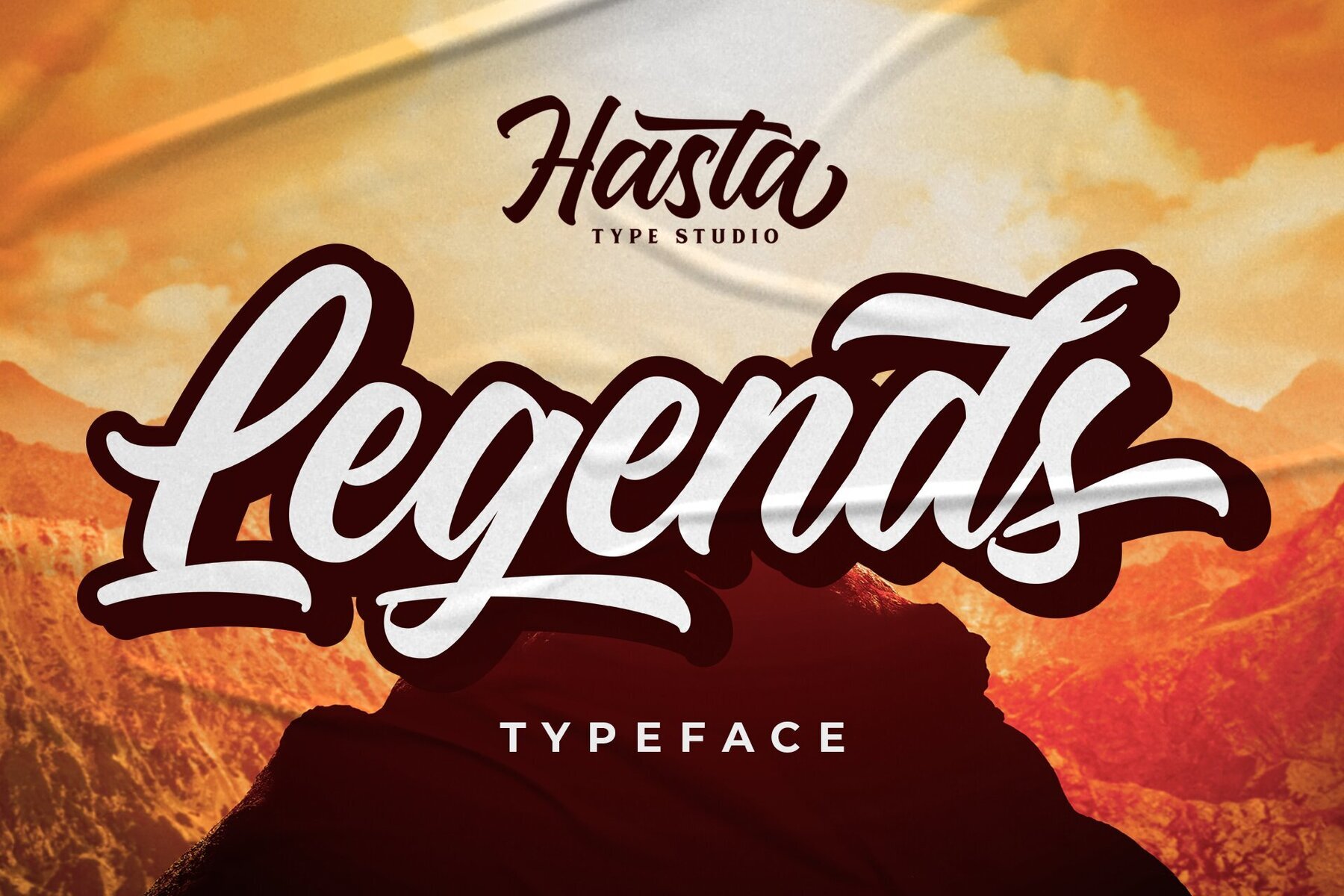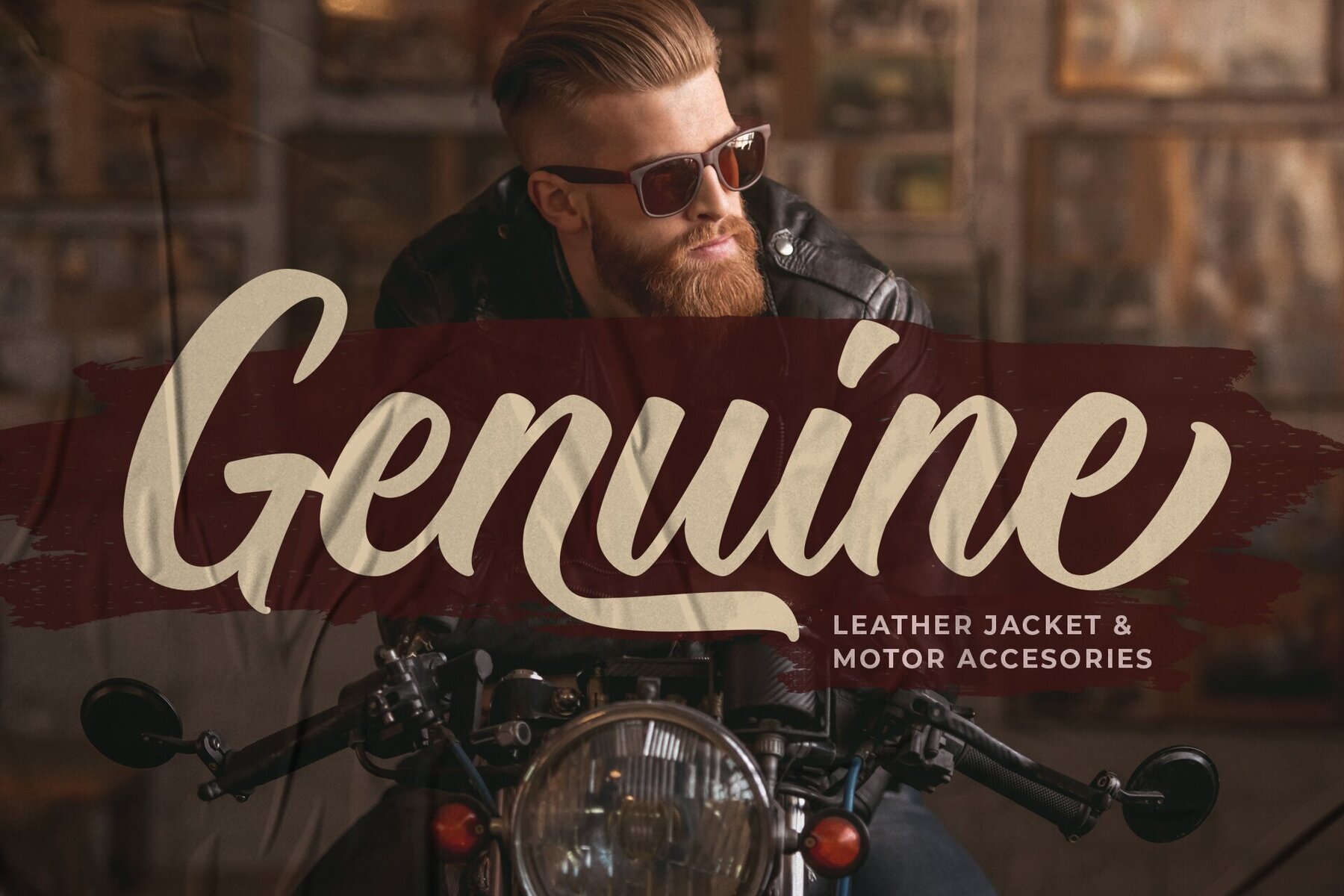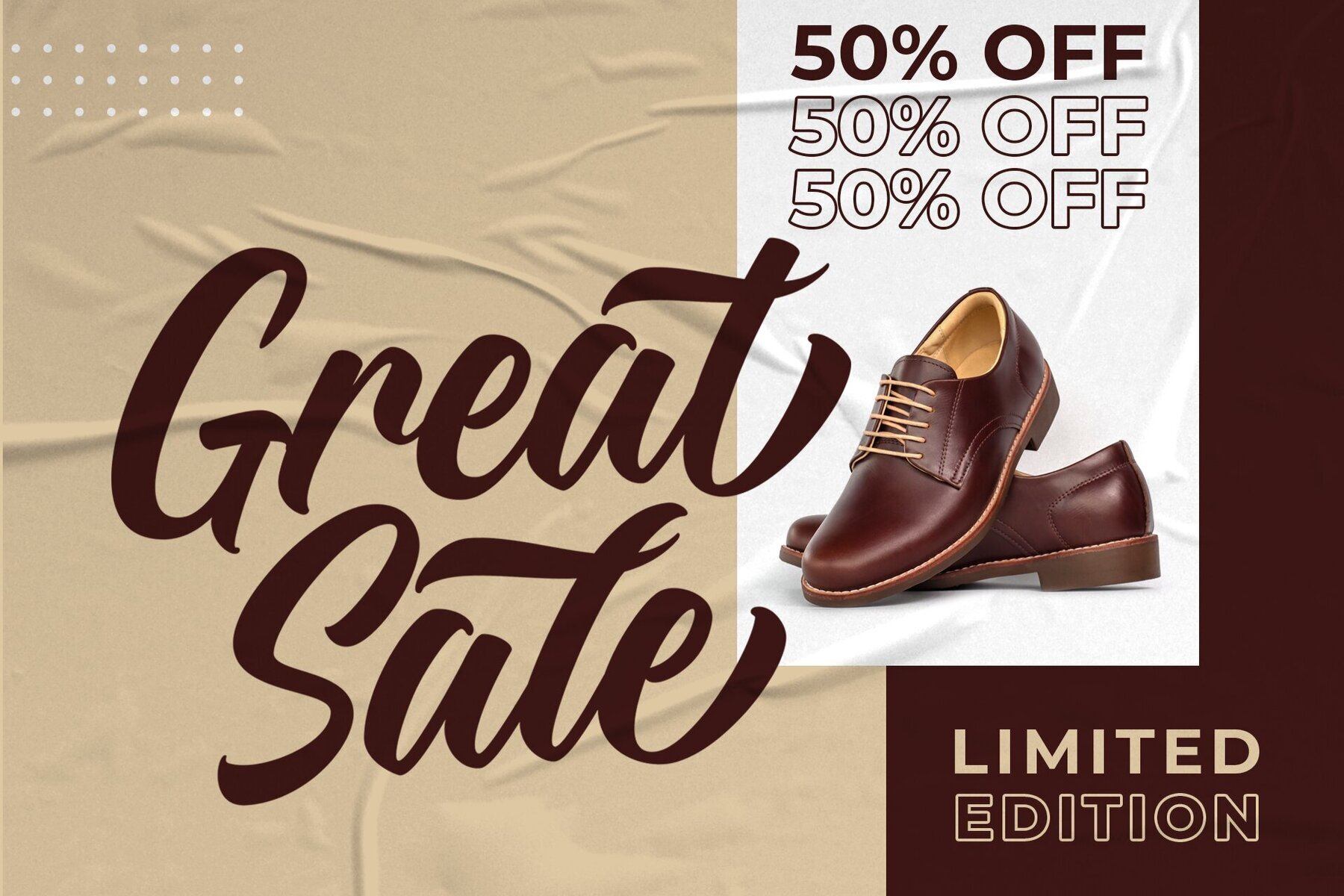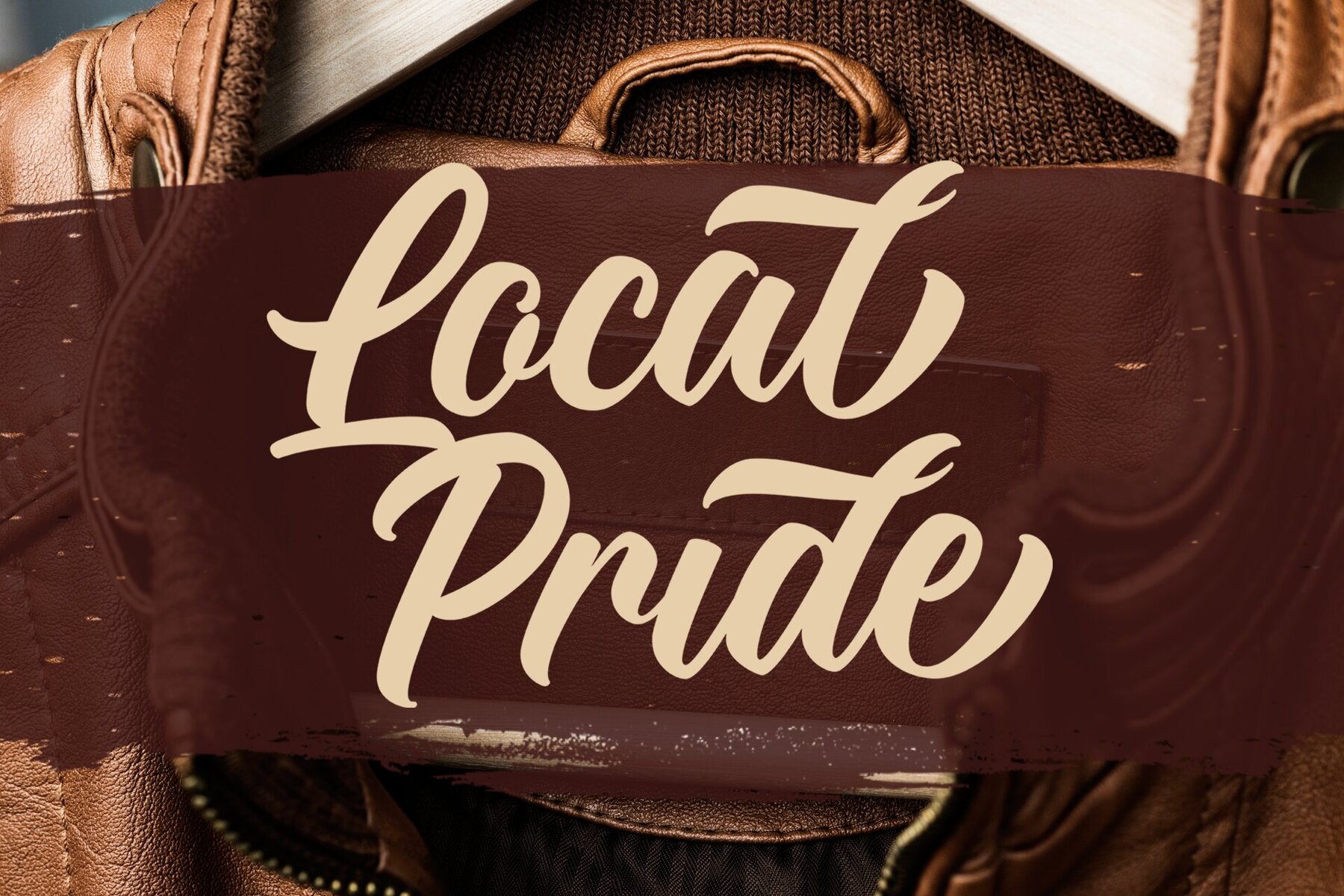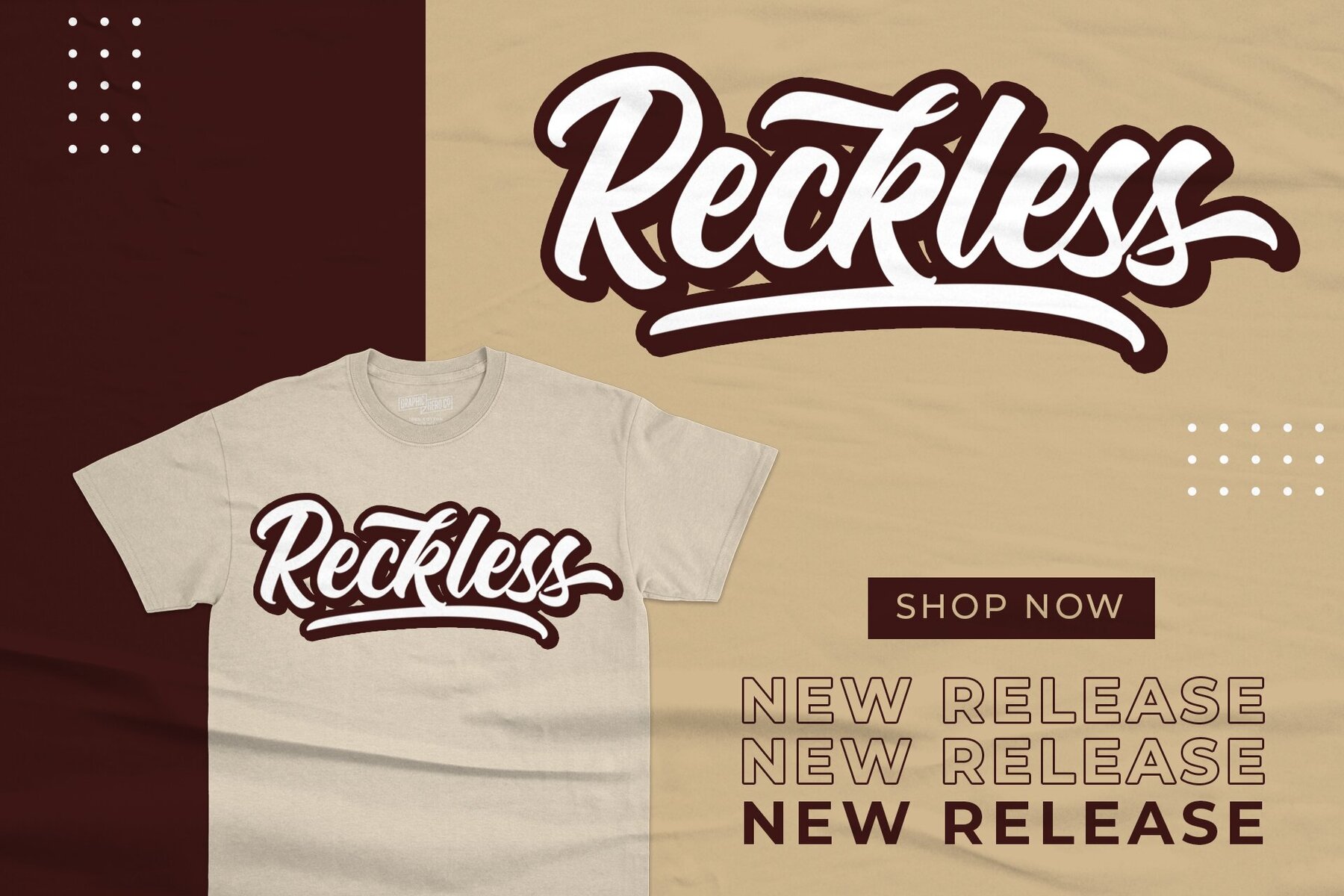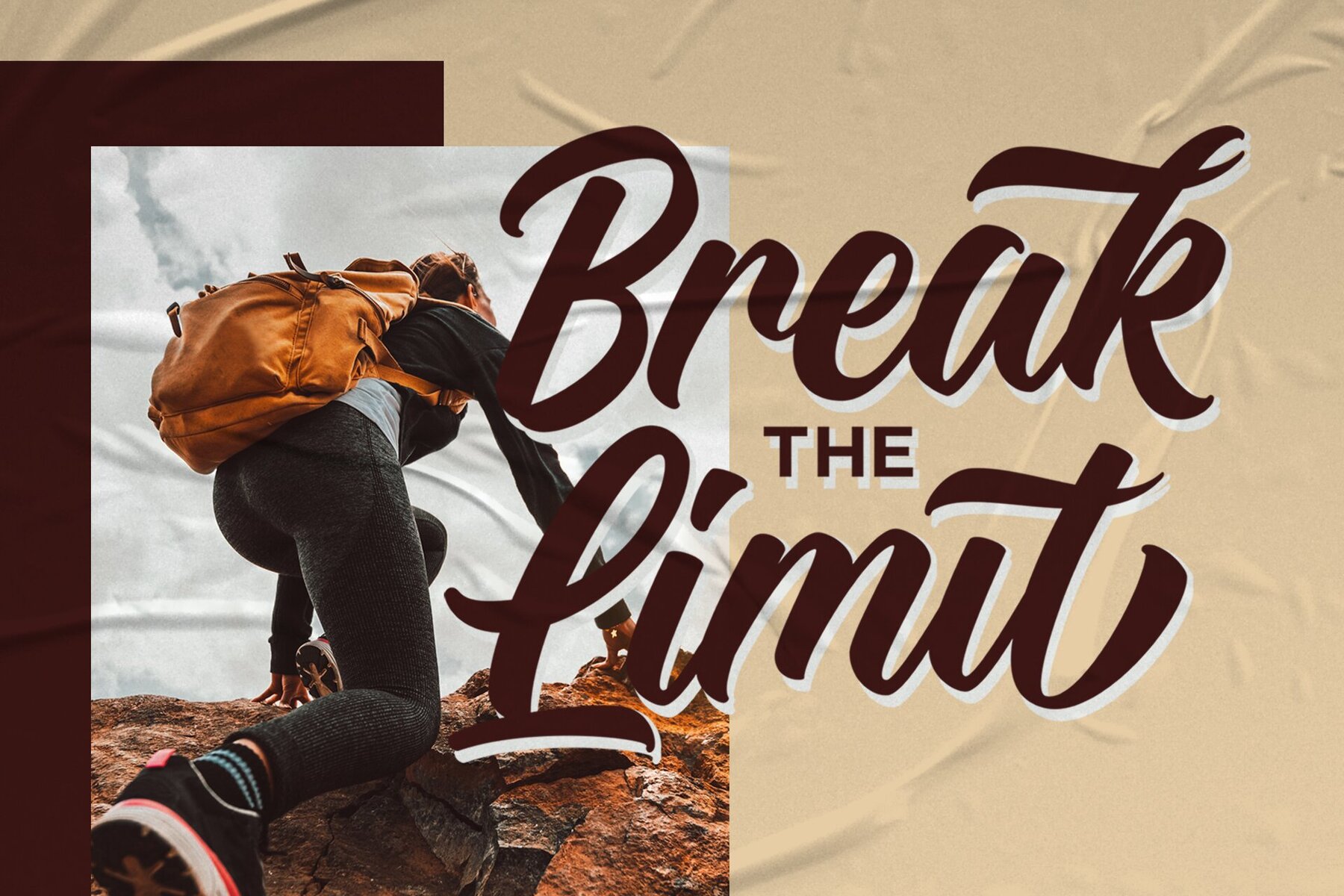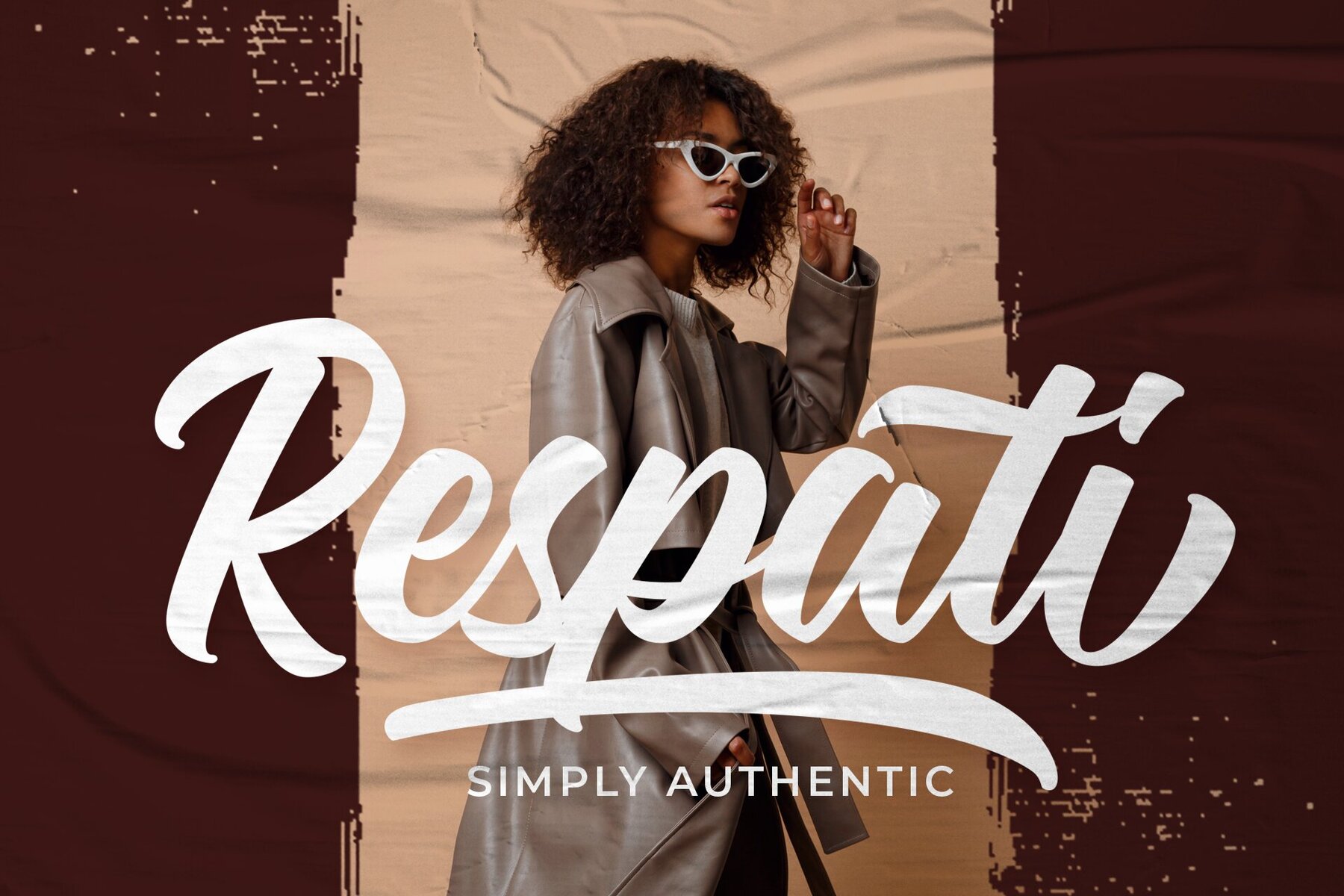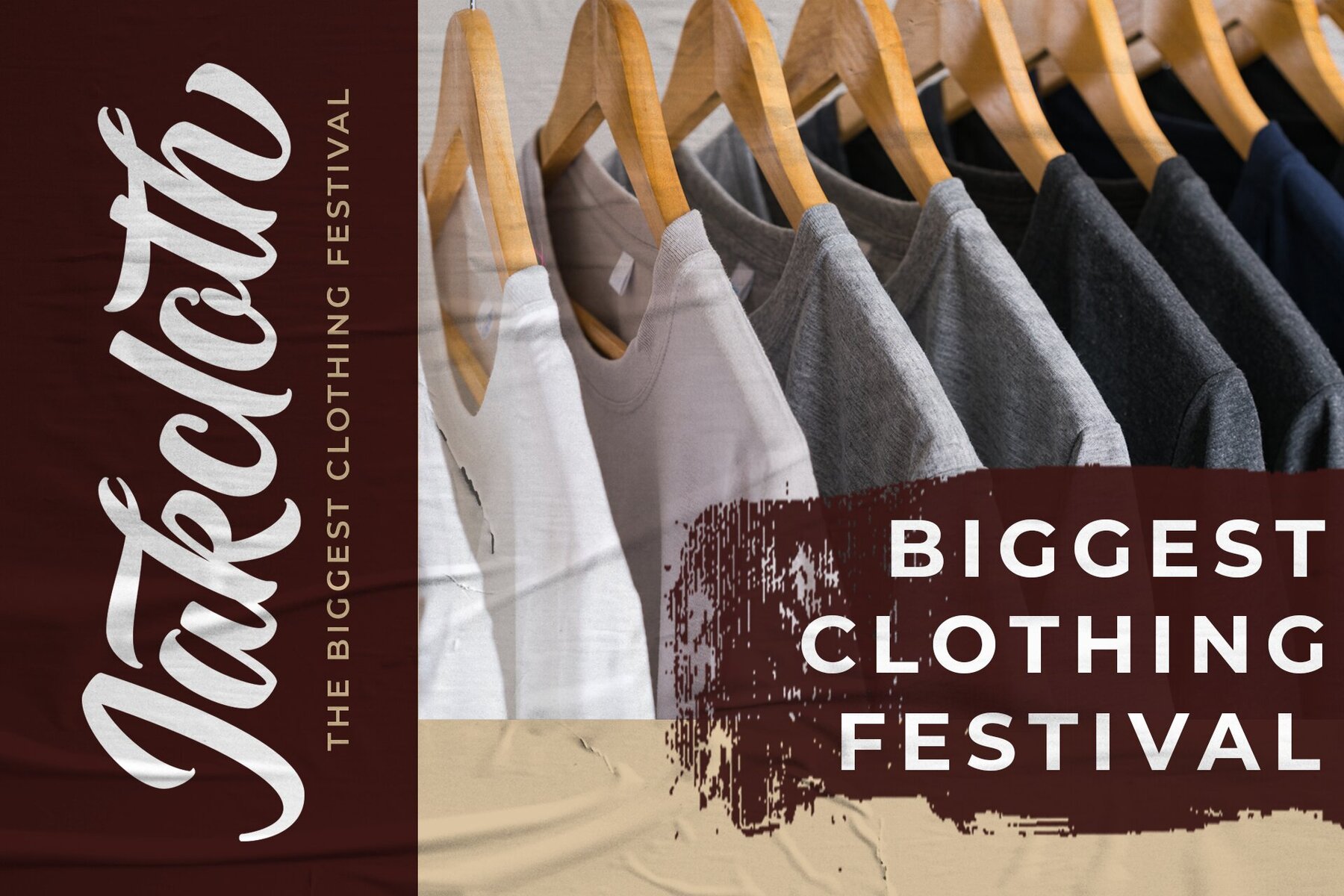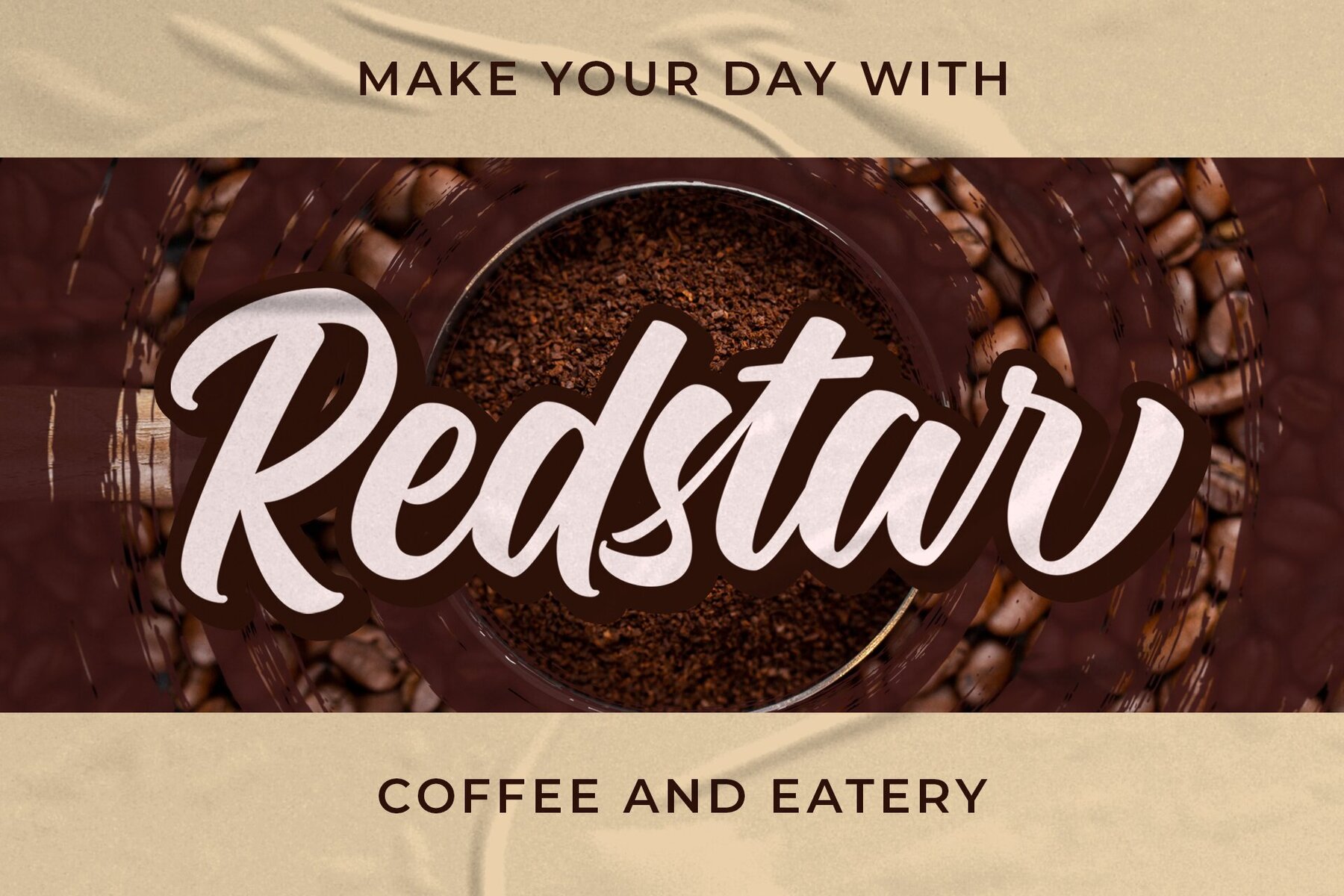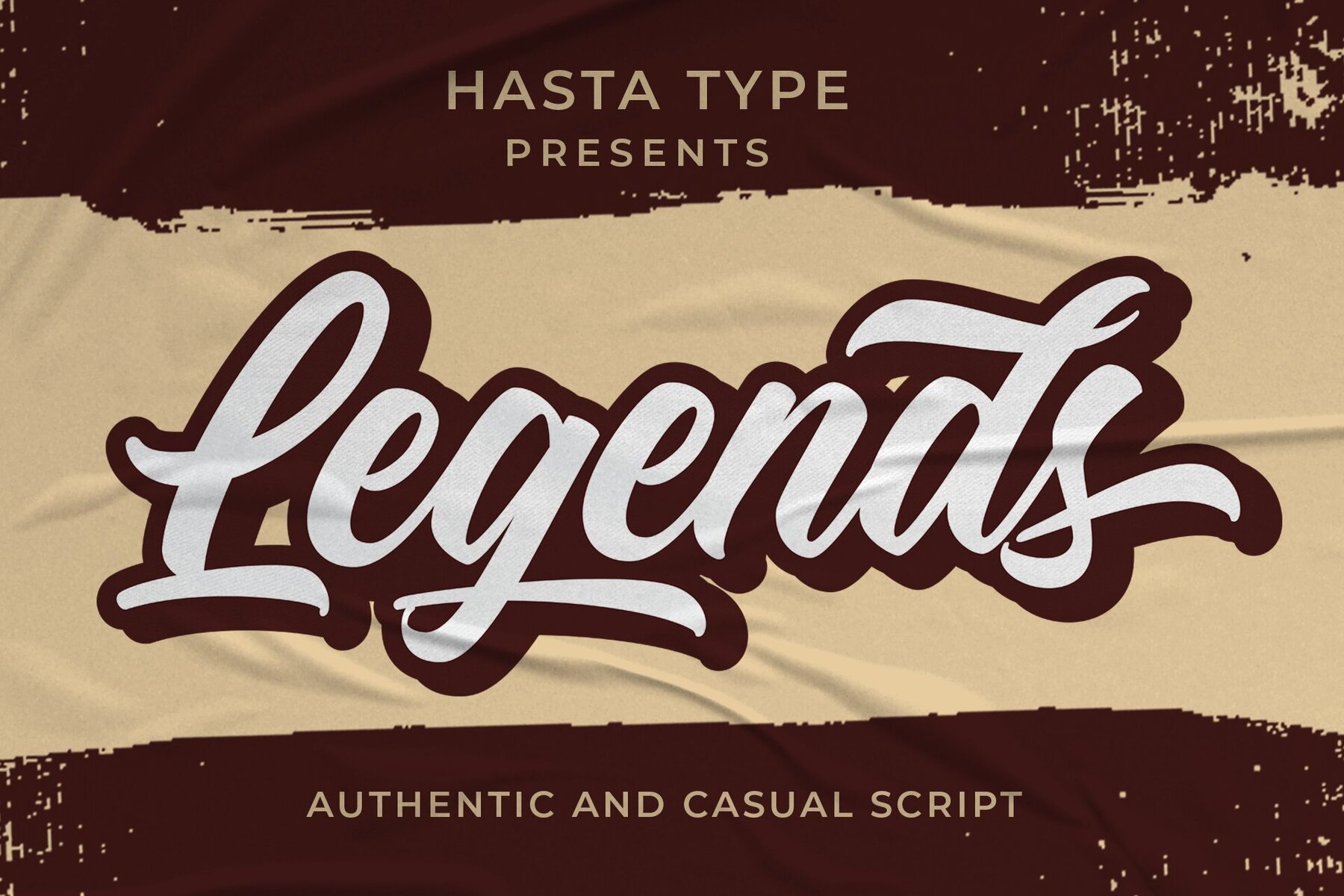
Legends Font
Legends Regular
Immerse yourself in the distinct charm of Legends Typeface, a script font that embodies hand-lettering style with an effortless casual feel. Designed with a personal touch using a manual brush pen, this typeface exudes authenticity and character. It is an ideal choice for various design applications, including logos, branding, t-shirt designs, and packaging projects.Legends Typeface: Authentic Script with Personality